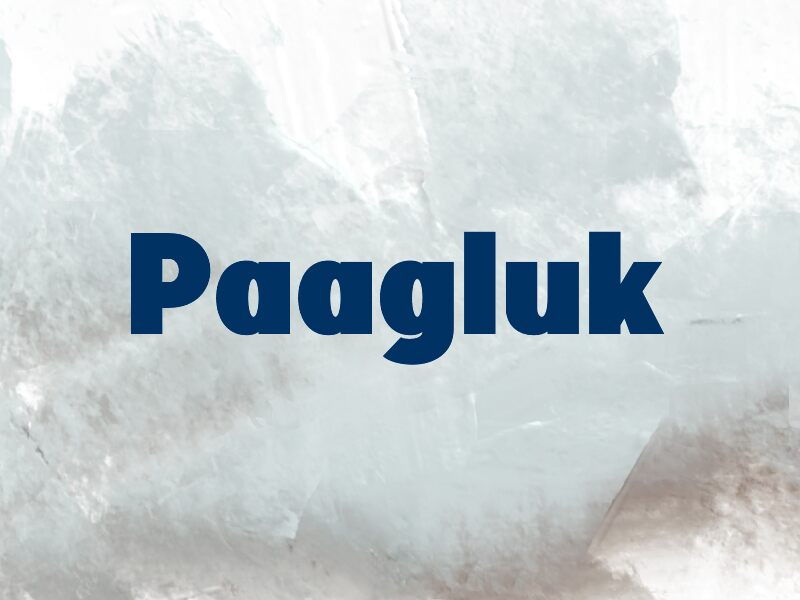
Paagluk font was designed by wepfont.com as a free, informal, and approachable surprise for your font collection. The fresh touch of this alphabet should be more than enough to add a personal touch to your designs. Its cheerful appearance makes it a friendly option for brands that want to effortlessly engage with users.
Paagluk can be used to design informal invitations or post on social media accounts that target wide audiences. Its modern style does not restrict this typeface to a specific age group or background. Pick this font to assemble catchy headlines, design magazines, or any other design that could use some charm and authenticity.
Paagluk is a charming free font that perfectly combines a playful design with versatile functionality. Ideal for various creative projects, this font is designed to captivate and engage your audience. Whether you are working on branding, invitations, or digital content, Paagluk adds a unique touch to your designs.